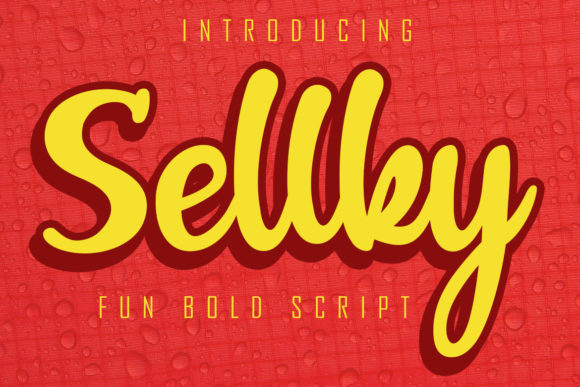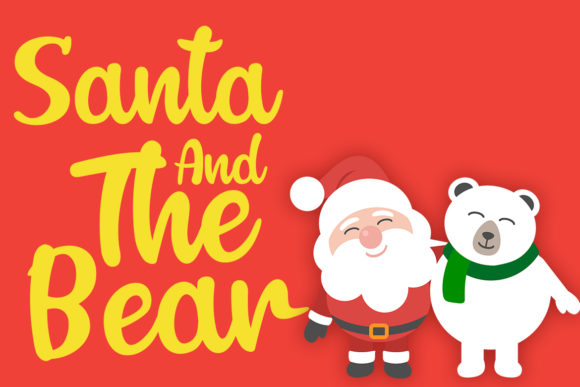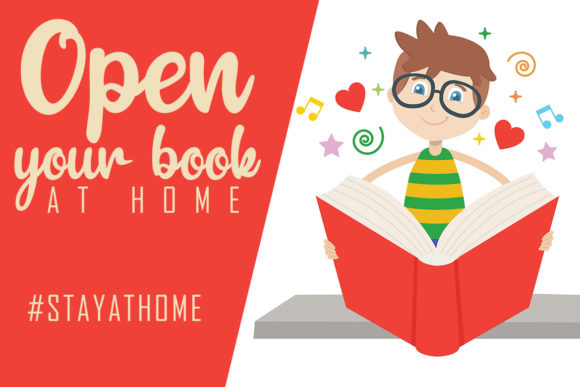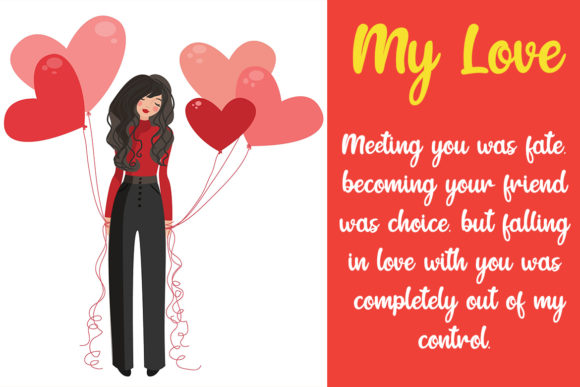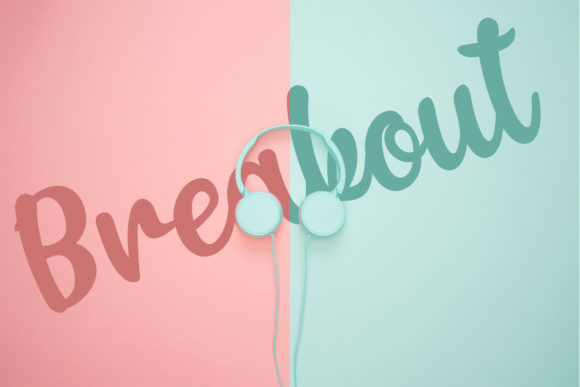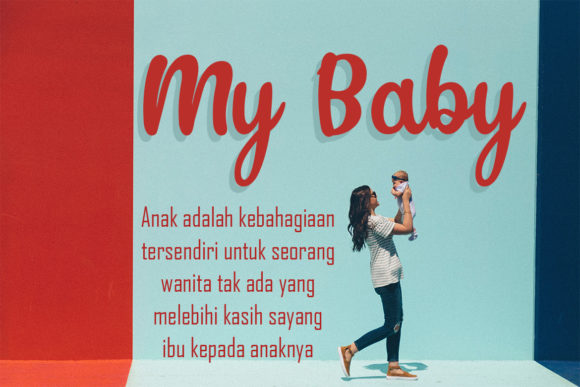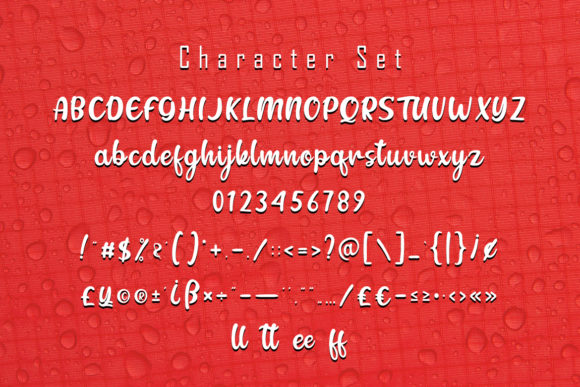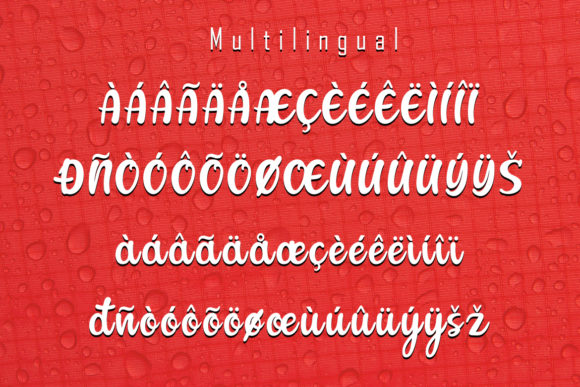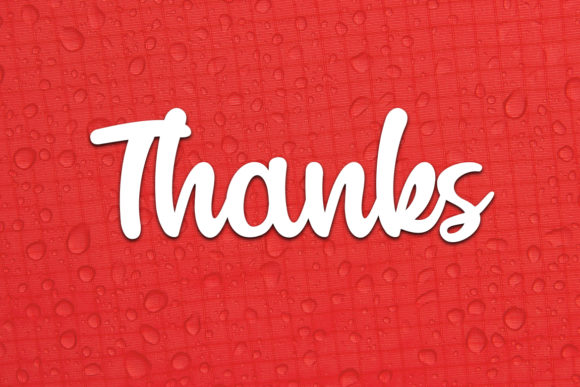
Sellky Font
About Sellky Font
Sellky is a cute and bold handwritten font. This fantastic font is best suited for headlines of all sizes, as well as for blocks of text that have both maximum and minimum variations. Whether it’s for web, print, moving images or anything else – Sellky will look spectacular.